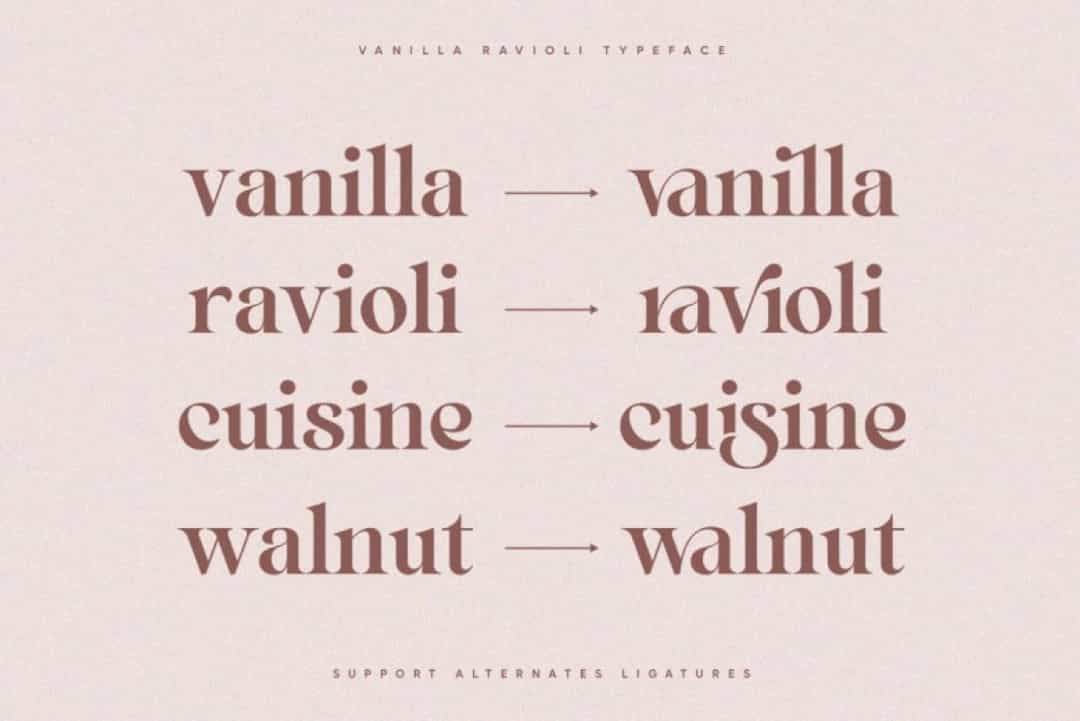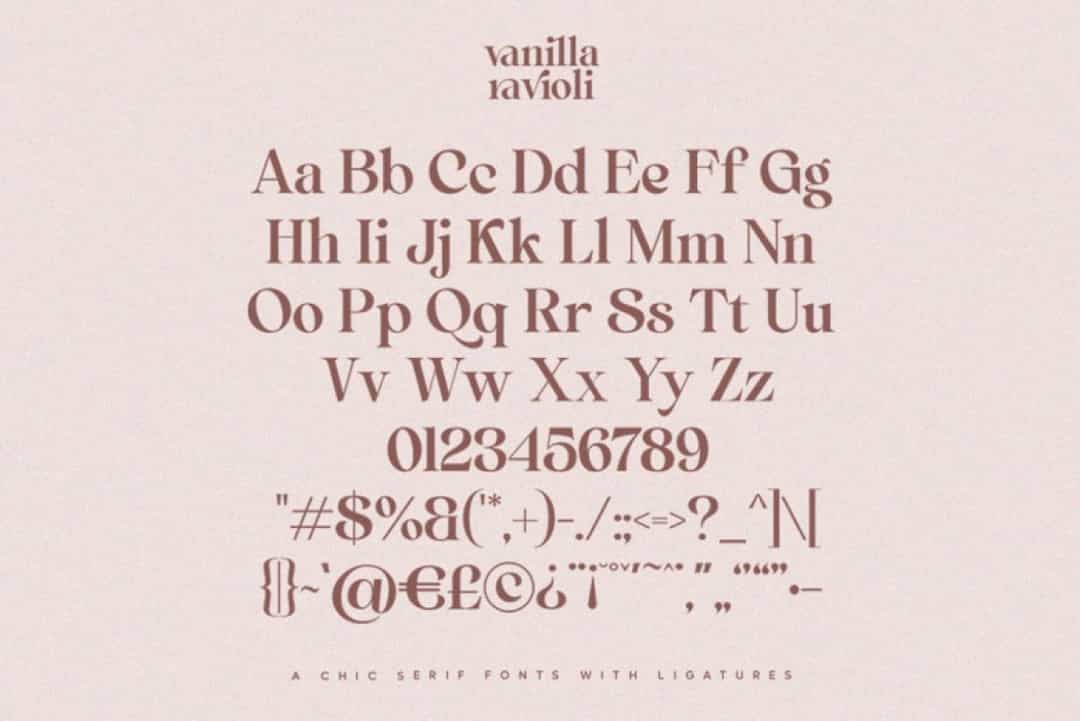
Discover Vanilla Ravioli Font, part of the Serif collection—a versatile and unique font perfect for adding a personal touch to your projects. Download it for free and enjoy crafting designs with style, from invitations to social media posts. This font is available exclusively for personal use, giving you the freedom to create without limits. Unlock your creativity with Vanilla Ravioli Font today!
Vanilla Ravioli is an eye-catching serif font inspired by contemporary and ligature characters, making it perfect for logos, branding projects, design projects, clothing branding packaging for products magazine headers or simply used as an eye-catching text overlay for any background photo.